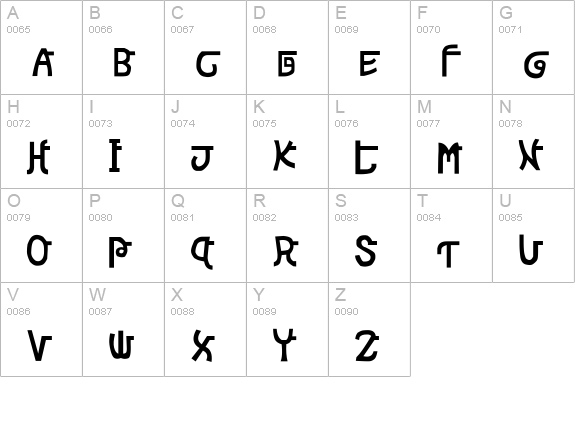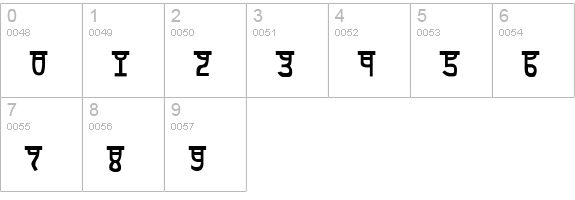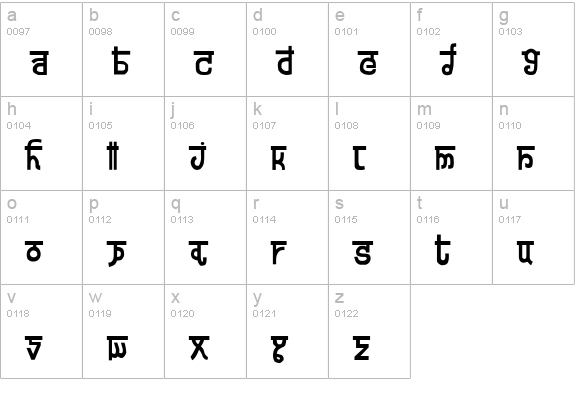
Devanagarish Font Details
Devanagarish font is a versatile and elegant typeface that beautifully captures the essence of traditional Devanagari script with a modern twist. This font is perfect for adding a touch of sophistication and cultural richness to your designs. Its intricate letterforms and smooth curves make it ideal for a wide range of projects, from branding to editorial design. Best of all, Devanagarish font is completely free to download at FontsMarket.com, making it accessible to designers and enthusiasts alike. Whether you're working on a print project or a digital design, this font will surely elevate your work and bring a unique charm to your creations. Don't miss out on the opportunity to enhance your designs with this stunning and free Devanagarish font available at FontsMarket.com.